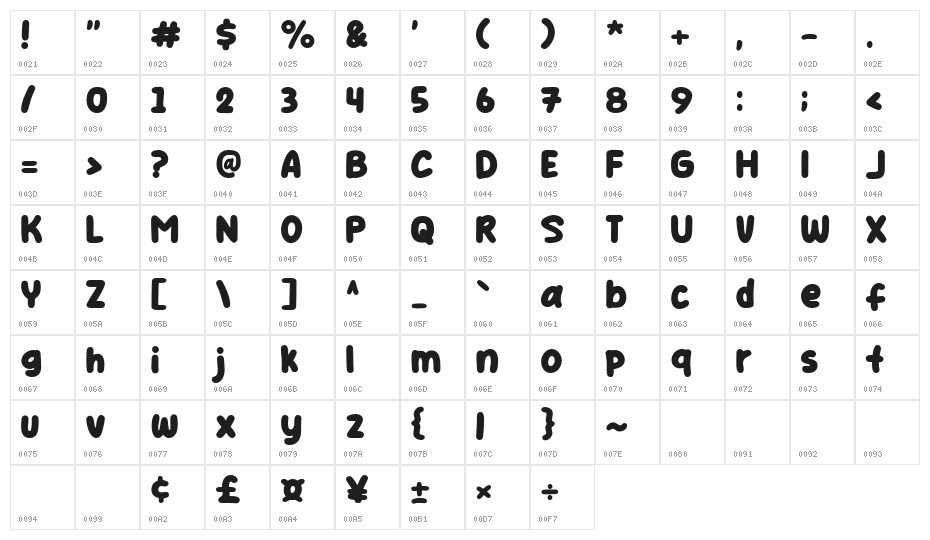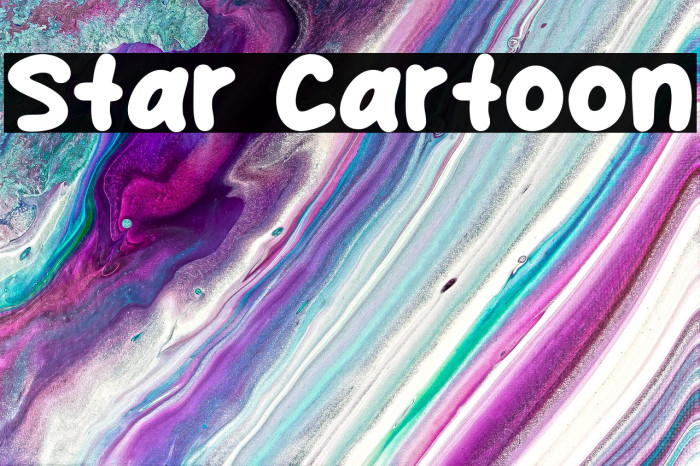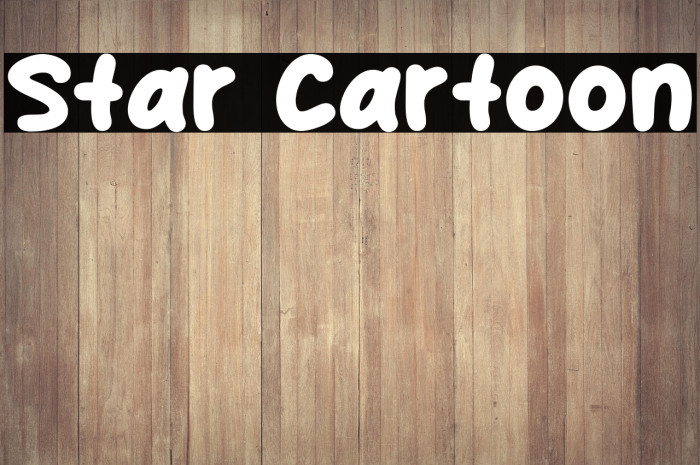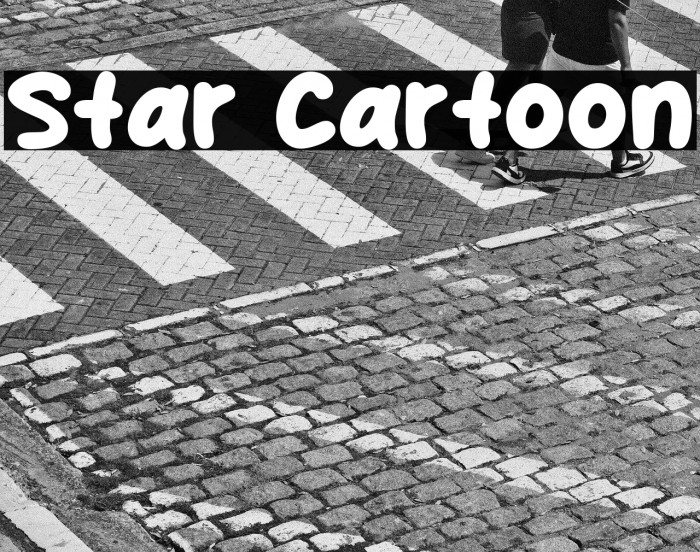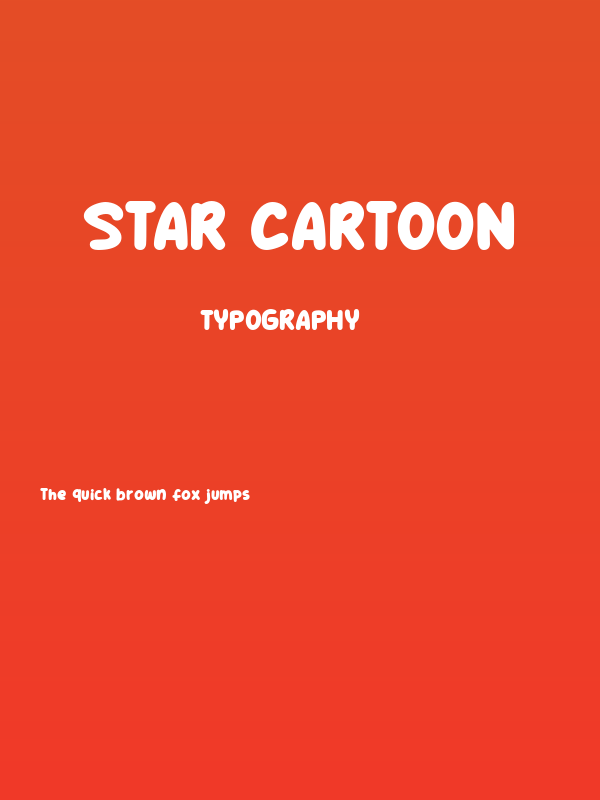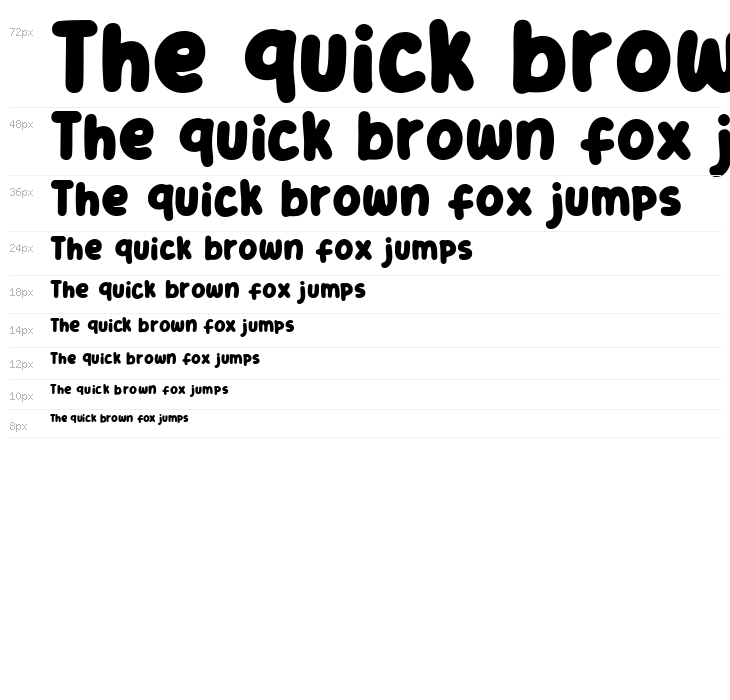
Star Cartoon Font
Star Cartoon Description
This playful and bold font features rounded, bubbly characters that exude a sense of fun and whimsy. The letters are thick and uniform, with a consistent stroke width that gives them a cartoonish appearance. The uppercase and lowercase letters maintain a cohesive style, while the numerals and special characters complement the overall design. The font's friendly and approachable nature makes it ideal for projects that require a lighthearted and informal touch. Its simplicity and clarity ensure readability, even at smaller sizes, while the exaggerated curves and soft edges add a unique charm.
| Overall Style | Cartoonish, Fun |
| Proposed Projects | Ideal for children's books, comic strips, playful branding, and party invitations. |